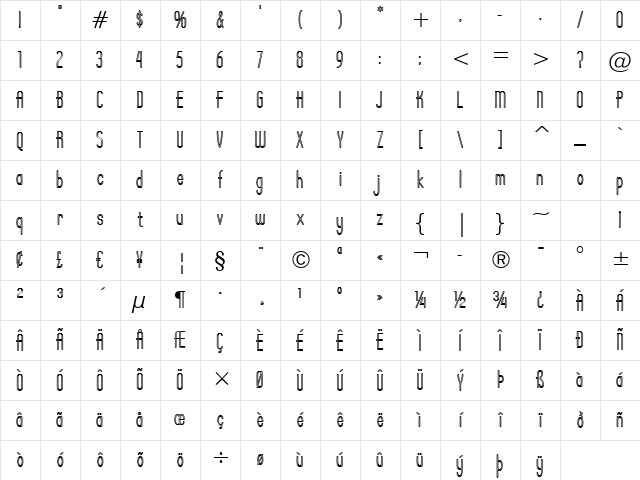
Operator Nine BTN Inline Regular Free Font
Operator Nine BTN Inline Regular
Operator Nine BTN Inline Family
Operator Nine BTN Inline Regular
Design Context for Operator Nine BTN Inline
Operator Nine BTN Inline is built around its visual character rather than neutral utility - its distinctive forms are designed to make an impression at display sizes.
Font Pairing: Pair with a clean neutral sans-serif for body copy to let Operator Nine BTN Inline's character lead without overwhelming the composition.
Pro Tip: Use Operator Nine BTN Inline exclusively at display sizes - it was designed to be seen, not read at length. Let a neutral companion handle body copy.